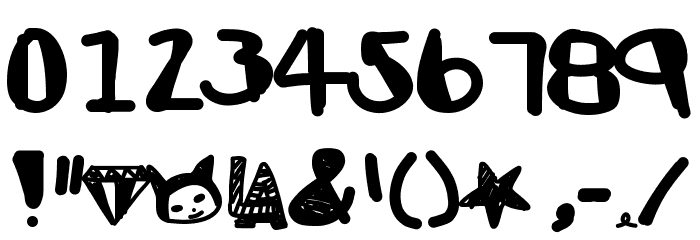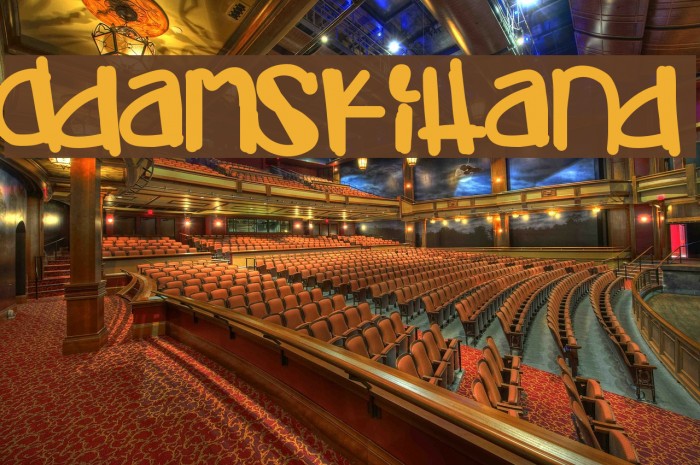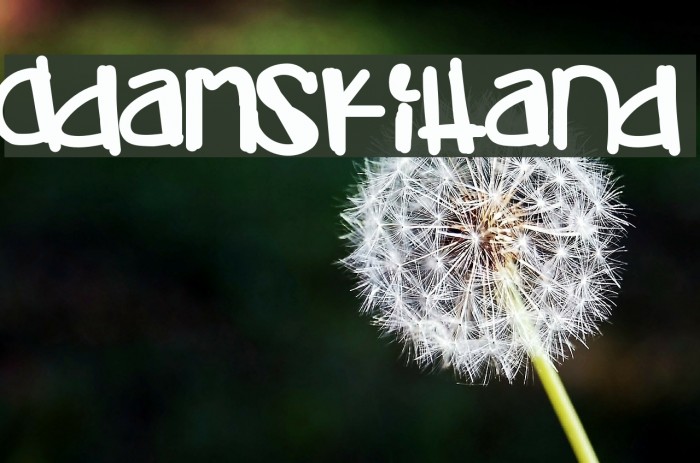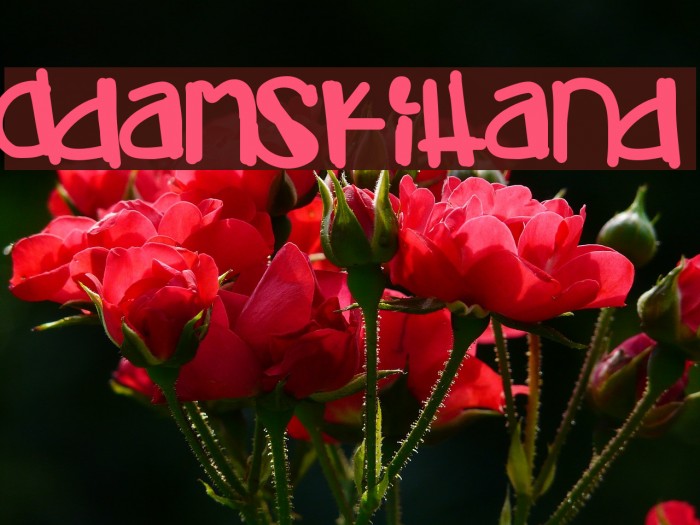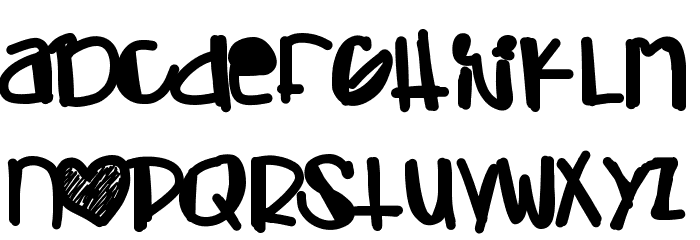
AdamskiHand Font
AdamskiHand Description
This playful and bold handwritten font features a unique and artistic style, with each character exhibiting a distinct, hand-drawn appearance. The letters are thick and rounded, with an uneven baseline that adds to the casual and informal feel. The uppercase and lowercase letters maintain a consistent style, while the numbers and special characters are creatively designed to match the overall aesthetic. The heart symbol used for the letter 'O' adds a whimsical touch, making this font ideal for projects that require a fun and lively vibe.
| Use Case | Logos, Headlines, Posters |
| Proposed Projects | Ideal for greeting cards, children's books, playful branding, and creative posters. |